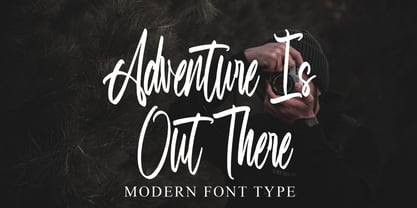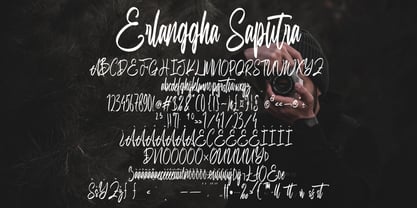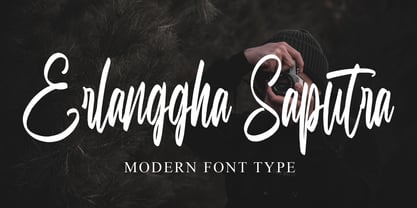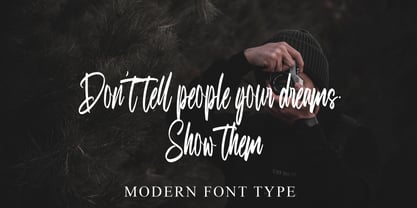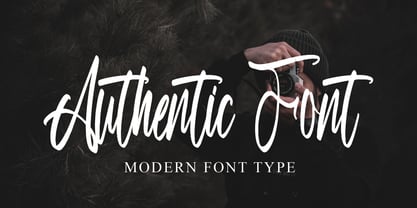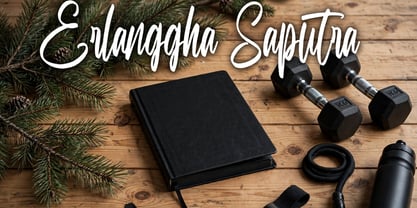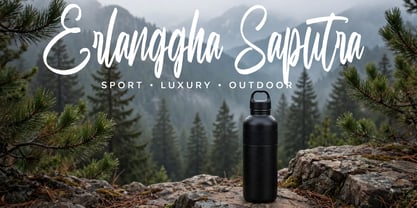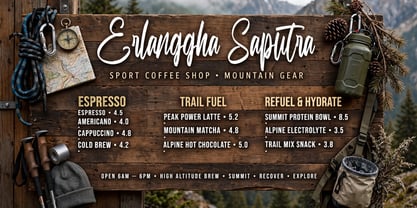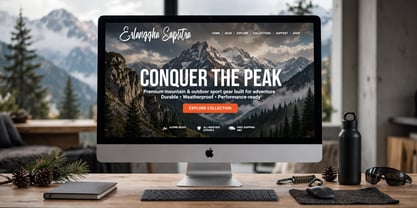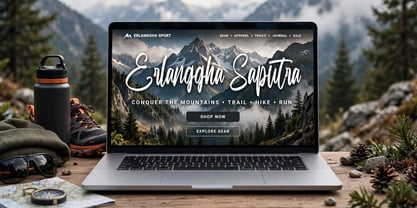
Erlanggha Saputra
by Ayska
The Erlanggha Saputra Font Family was designed by Dhoni Trihatmoko and published by Ayska. Erlanggha Saputra contains 1 styles. More about this family
Step into the captivating world of Erlanggha Saputra, a masterfully crafted font balancing contemporary elegance with the heartfelt warmth of handwriting. This expertly designed typography exudes distinction and sophistication, making it an irresistible choice for your digital creations. With Erlanggha Saputra, you can entrance your blog readers, add a unique flair to your digital planner, breathe new life into your invitations, and convey your deepest feelings through homemade cards. Marrying the nostalgic charm ideal for photo albums with a fresh, customization twist perfect for home décor, it holds the capacity to elevate any digital piece into a masterpiece of visual appeal. Rooted in genuineness, Erlanggha Saputra inspires your inner creative, leaving a lasting imprint. Discover the artistic excellence of Erlanggha Saputra, harness its subtle power, and watch as it transforms your creative visions into tangible art pieces.
Designers: Dhoni Trihatmoko
Foundry: Ayska